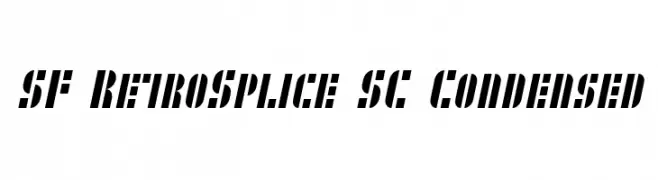
A condensed, geometric font with a modern, technical style.
A futuristic, condensed, and oblique font with a dynamic and sleek appearance.
A bold, condensed, and geometric font with a modern aesthetic.
A modern, condensed, and oblique font with sleek, elongated characters.
A bold, retro-inspired font with a condensed and dynamic style.
A bold, condensed font with a retro, angular design.
A bold, condensed font with geometric shapes and clean lines, ideal for modern displays.
A dynamic, condensed, and oblique font with a modern, energetic style.
A geometric, square, and condensed font with a modern and futuristic style.